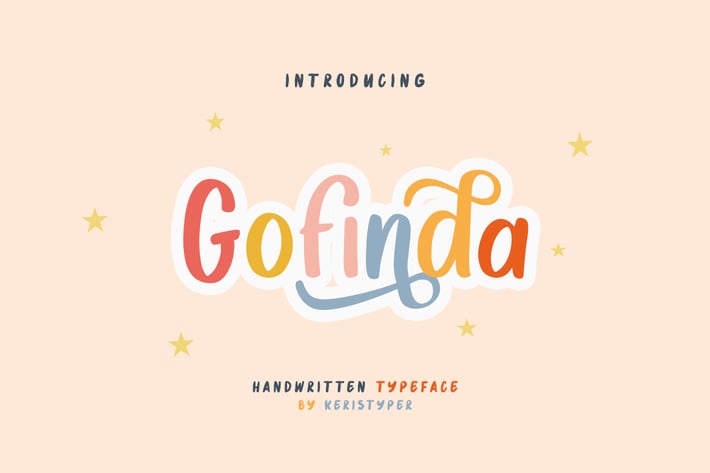
Gofinda Display Handwritten Font
Govinda is a Fun display font, this font looks funny, cute, kids, cartoon, playful, catchy, and easy to use. This font is the best choice for your professional design projects, including logo, poster design, headline, flyer, cd cover album, quotes, business card, branding, magazines, social media, advertisements, product designs, or something that need playful or cartoon looks.
Gofinda Font multilingual support:
Afrikaans, Albanian, Catalan, Danish, Dutch, English, Estonian, French, Finnish, German, Icelandic, Indonesian, Italian, Malay, Norwegian, Portuguese, Spanish, Swedish, Zulu, and many more.